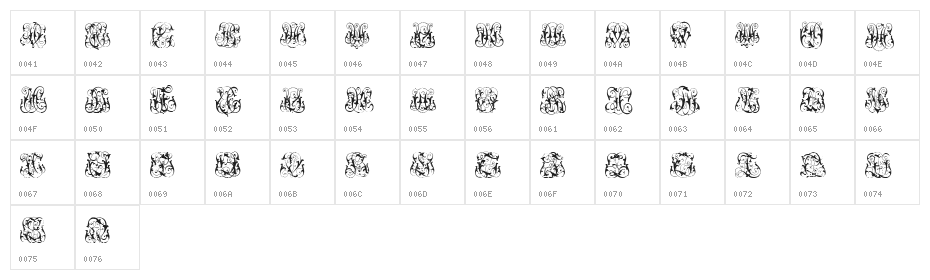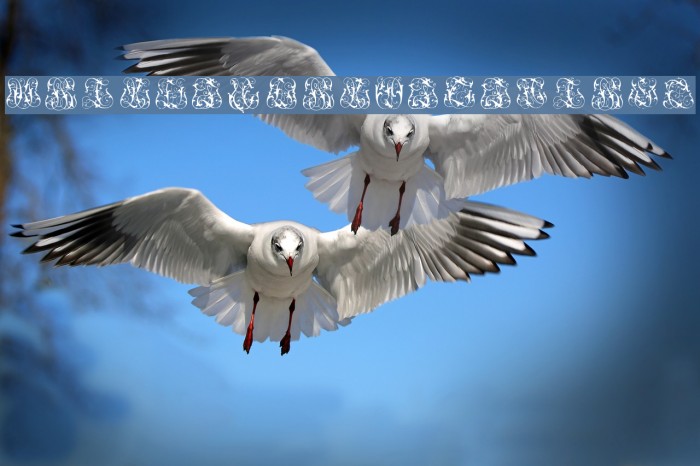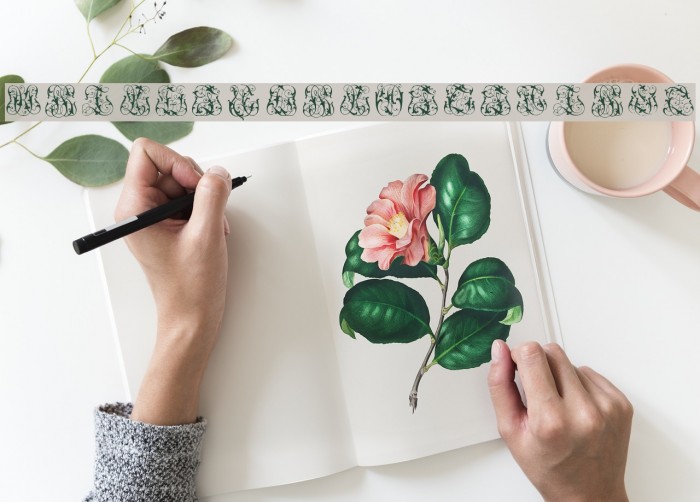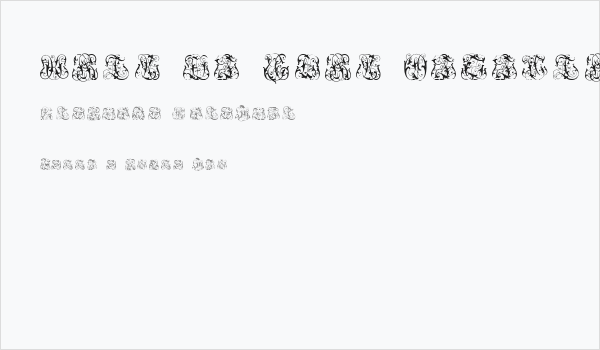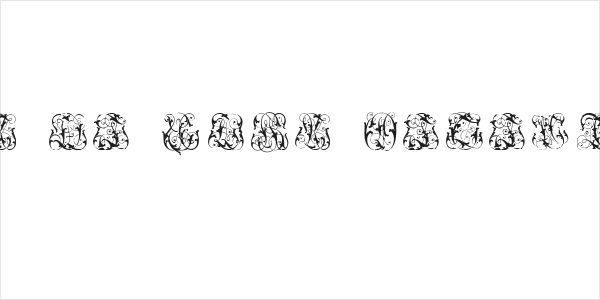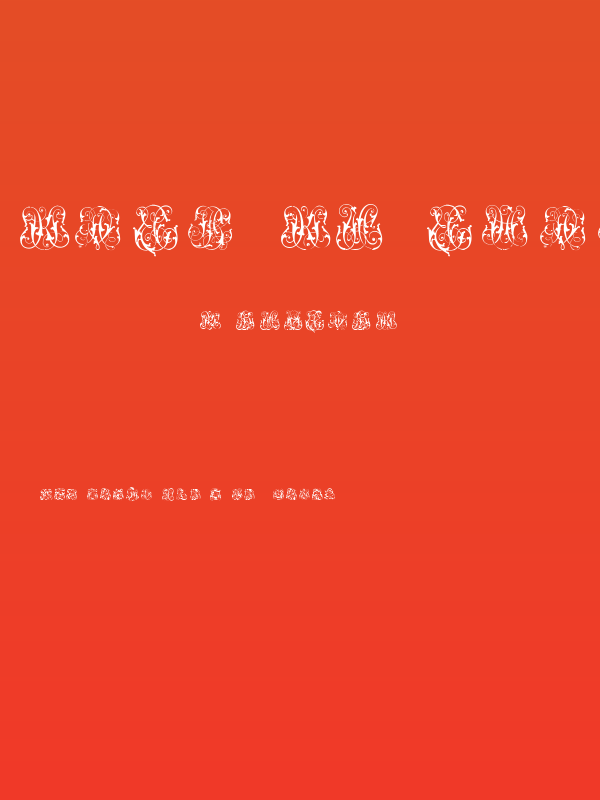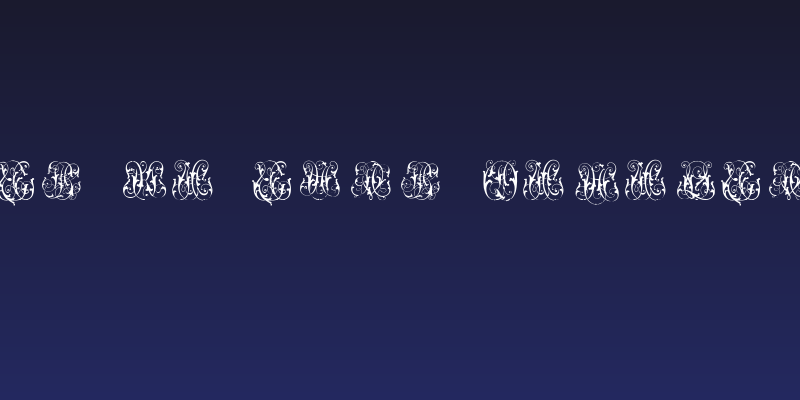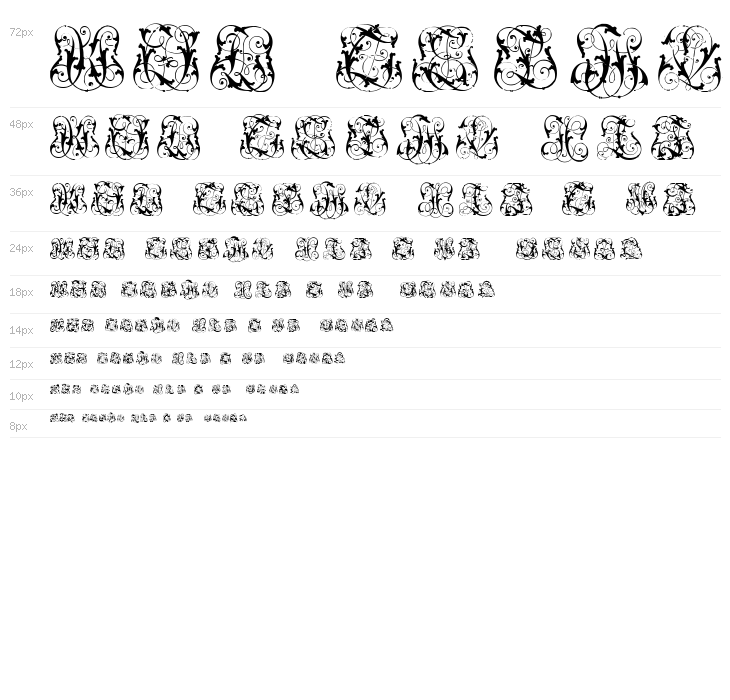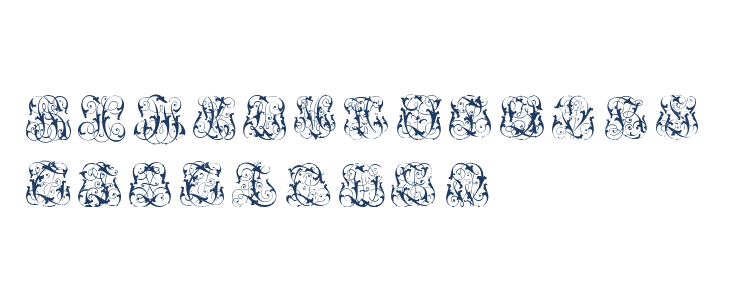
Hard to Read Monograms Font
Hard to Read Monograms Description
This font is an intricate and highly decorative monogram style, featuring elaborate swirls and flourishes that intertwine with each letter. The design is ornate, with each character appearing as a piece of art, making it challenging to read at a glance. The letters are densely packed with embellishments, creating a luxurious and vintage feel. This font is best suited for applications where aesthetic appeal is prioritized over readability, such as in logos, invitations, or decorative initials. The complexity of the design gives it a regal and sophisticated appearance, ideal for projects that require a touch of elegance and grandeur.
| Use Case | Logos, Decorative initials, Invitations |
| Proposed Projects | Ideal for wedding invitations, luxury brand logos, decorative initials, and high-end product packaging. |